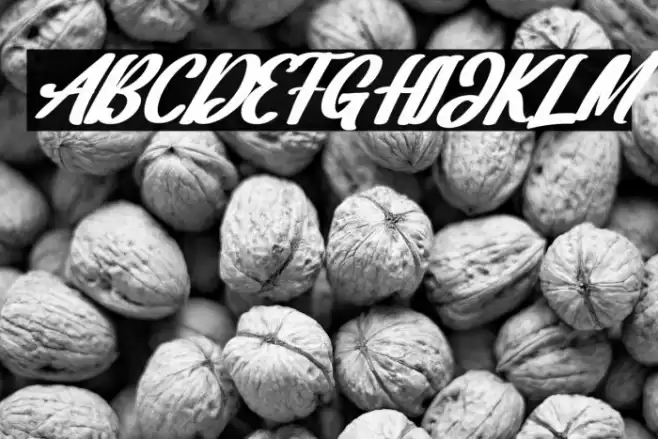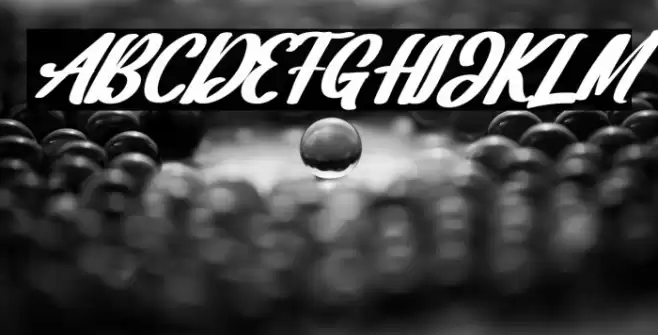
Dakota Artha Italic Font
Dakota Artha Italic Description
This font features a bold and dynamic script style with a strong italic slant, giving it a sense of movement and elegance. The characters are connected, mimicking the fluidity of handwriting, which adds a personal and artistic touch. The strokes are thick and consistent, providing a robust appearance. The uppercase letters are slightly larger than the lowercase, maintaining a harmonious balance. The numbers and special characters follow the same stylistic cues, ensuring uniformity across all elements. This font is ideal for projects that require a touch of sophistication and flair.
A bold, italic script font with a dynamic and elegant style from Uncategorized fonts.
- Proposed Projects: Ideal for wedding invitations, branding, logo design, and elegant packaging.
- Character Spacing: Tight
- Overall Style: Elegant
- Use Case: Logos, Invitations, Branding